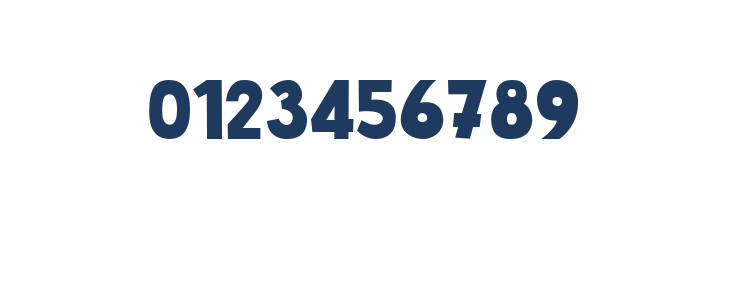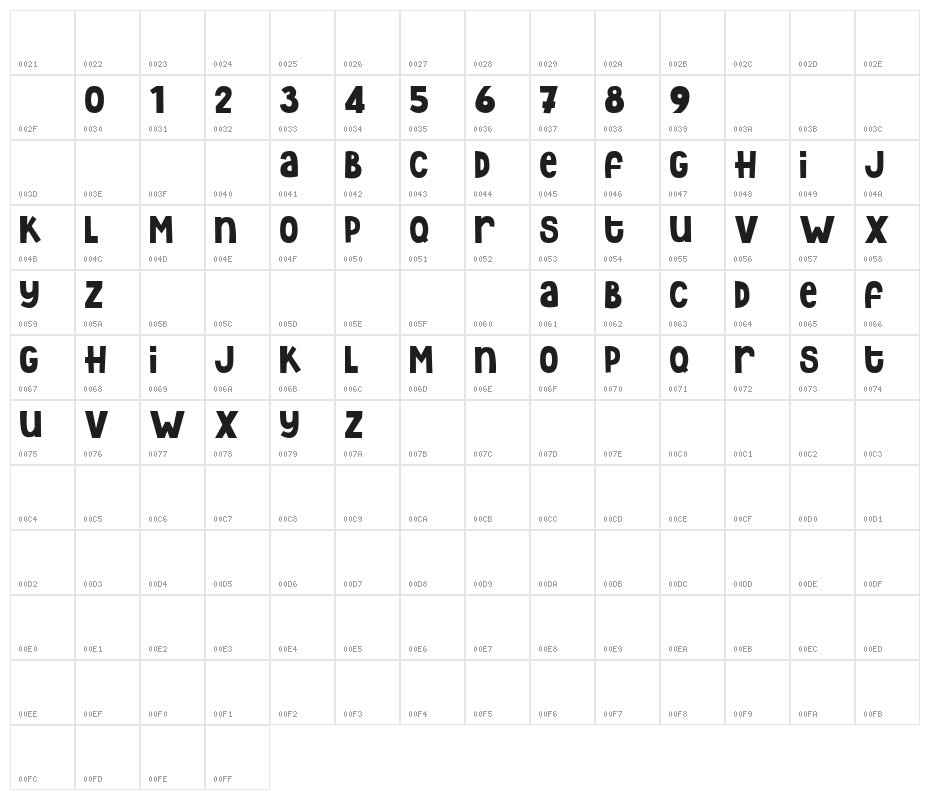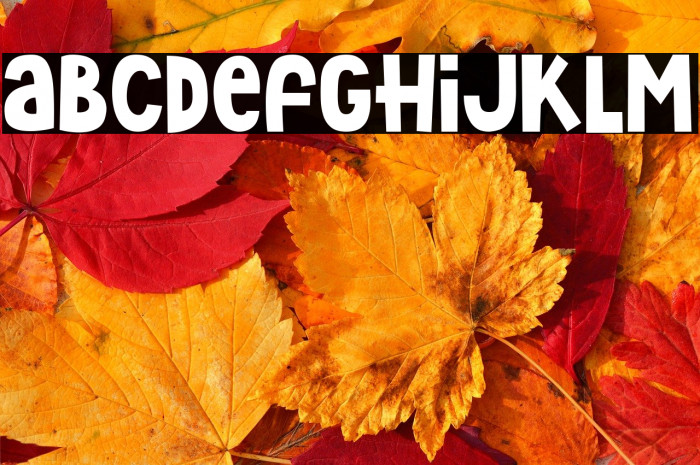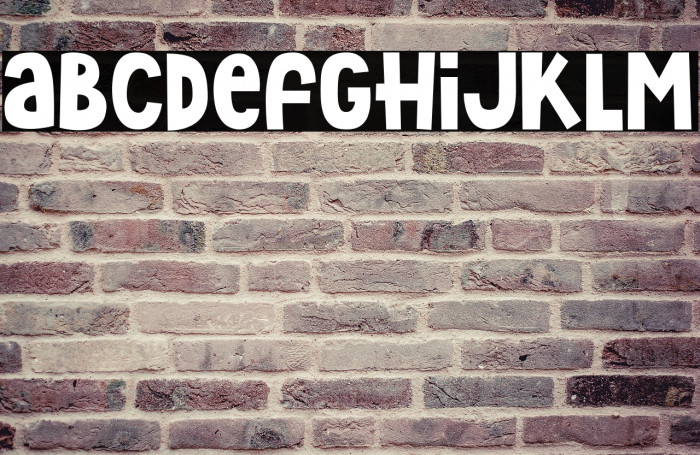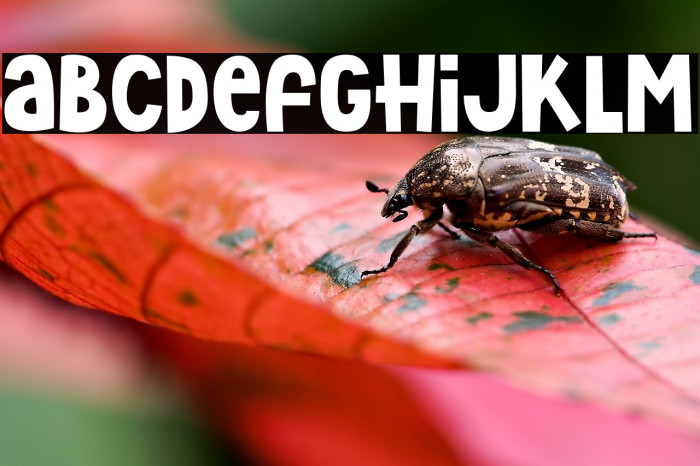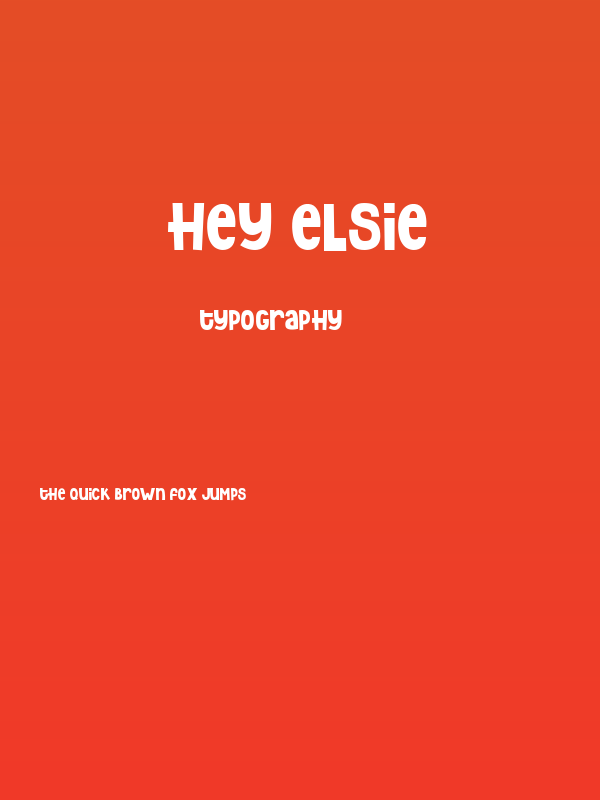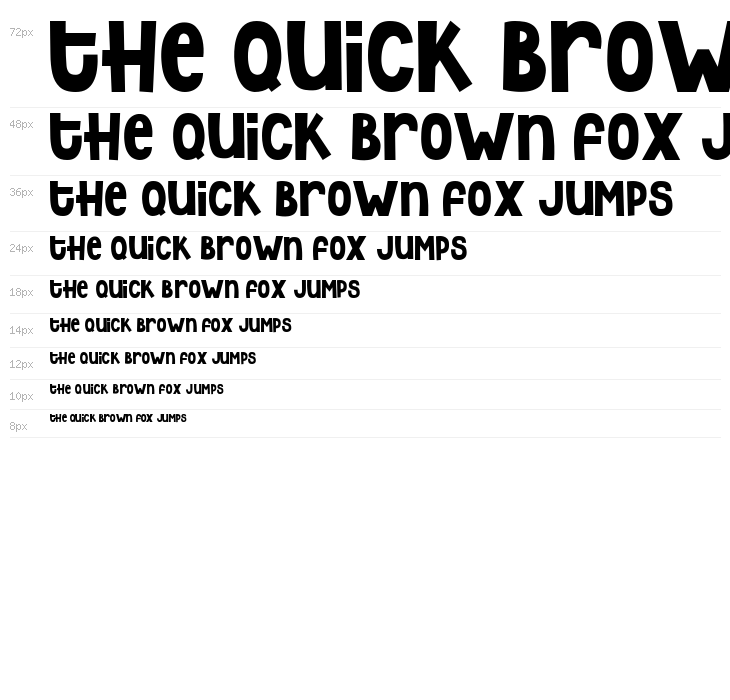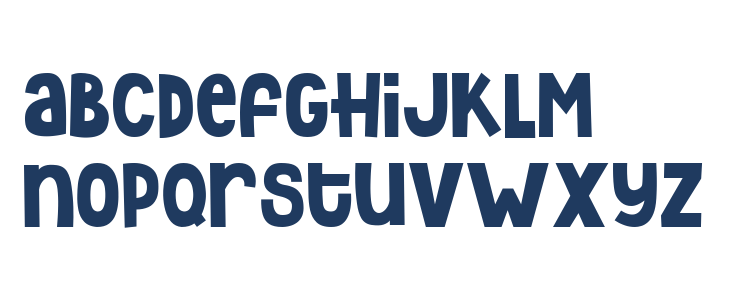
Hey Elsie Font
Hey Elsie Description
This font features a playful and bold style with rounded edges and a slightly whimsical appearance. The characters are thick and uniform, providing a strong visual impact. The uppercase and lowercase letters maintain a consistent height, contributing to a cohesive look. The numbers are equally bold, ensuring readability and a sense of fun. The overall design is approachable and friendly, making it suitable for projects that require a touch of personality and charm.
Overall StylePlayful
Proposed ProjectsIdeal for children's books, playful branding, posters, and creative invitations.